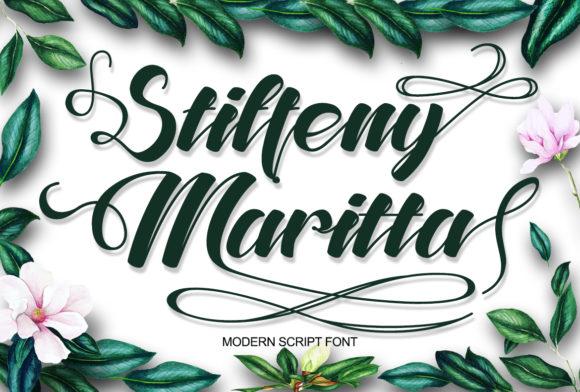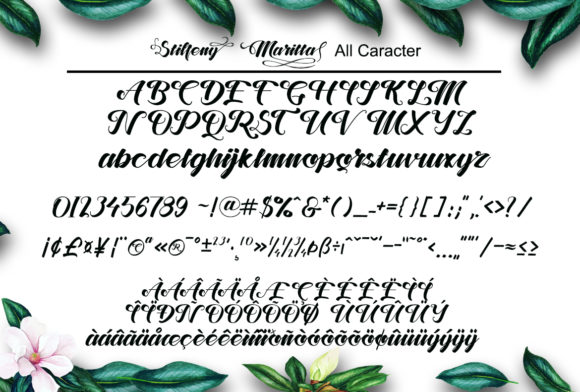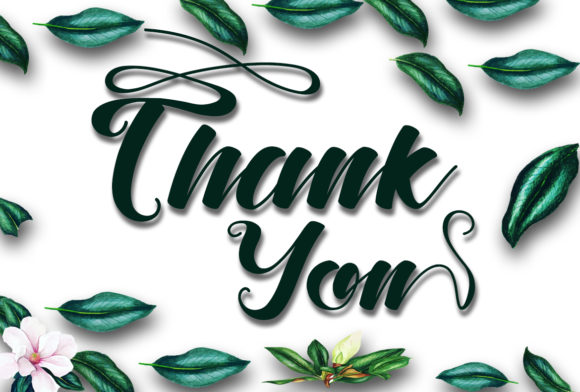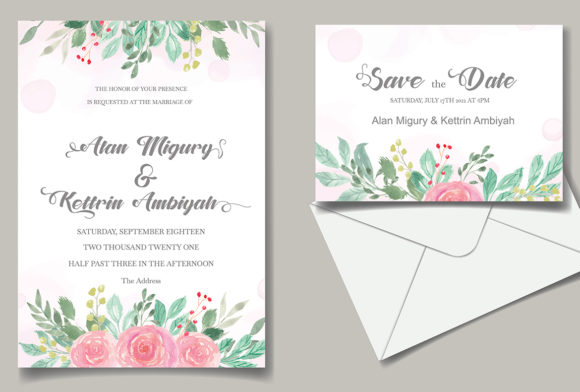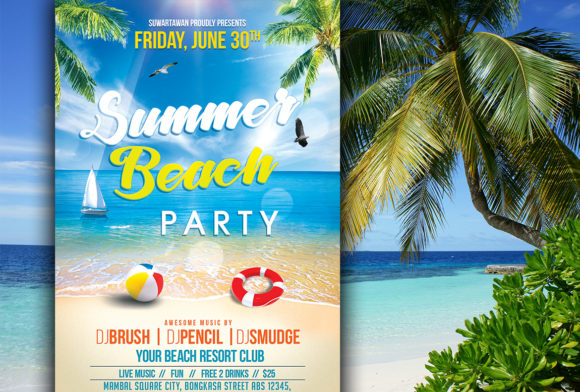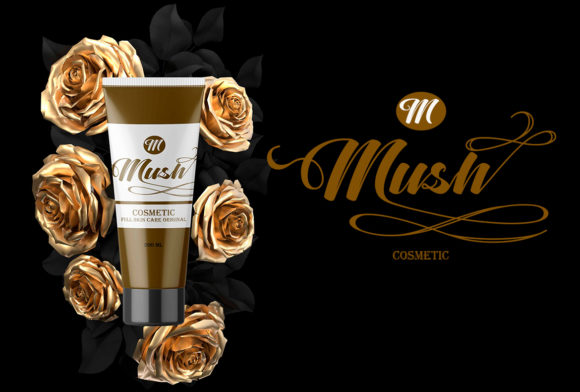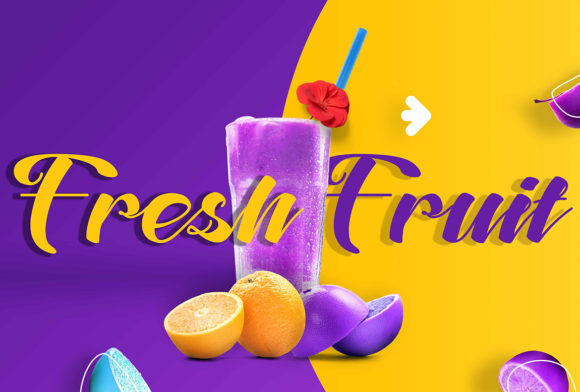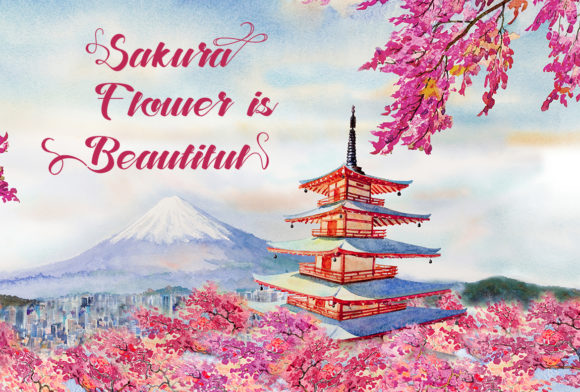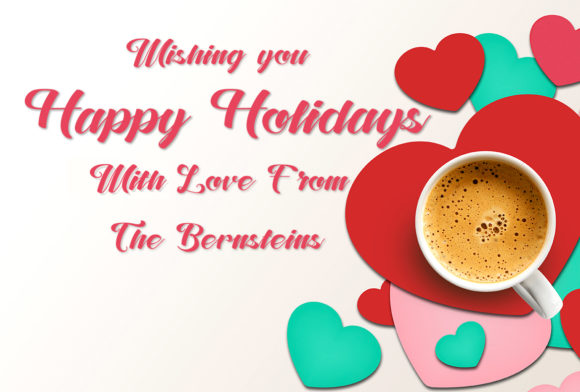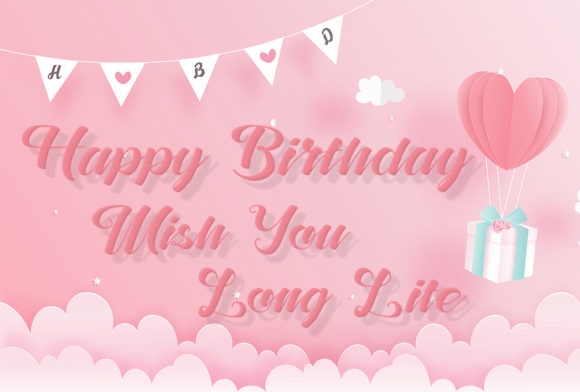
Stiffeny Maritta Font
About Stiffeny Maritta Font
Stiffeny Maritta is a flowing handwritten font, described by an elegant touch, perfect for your favorite projects. Fall in love with its incredibly distinct and timeless style and use it to create spectacular designs!